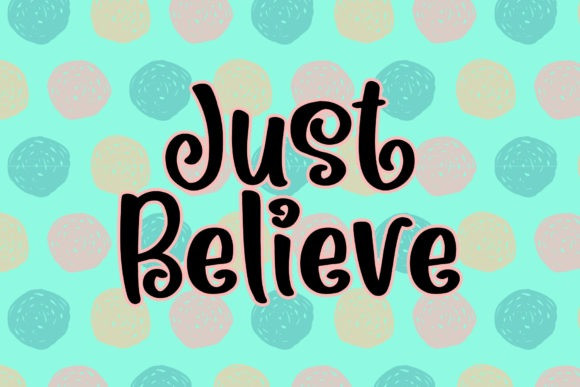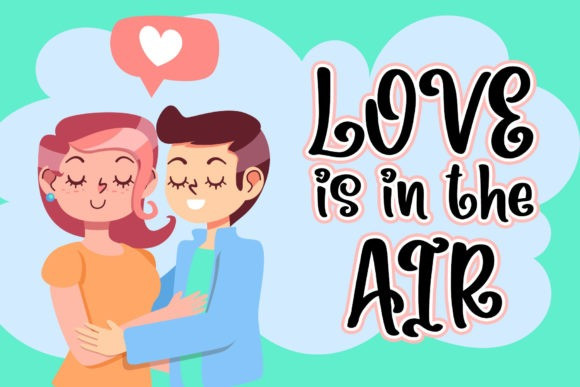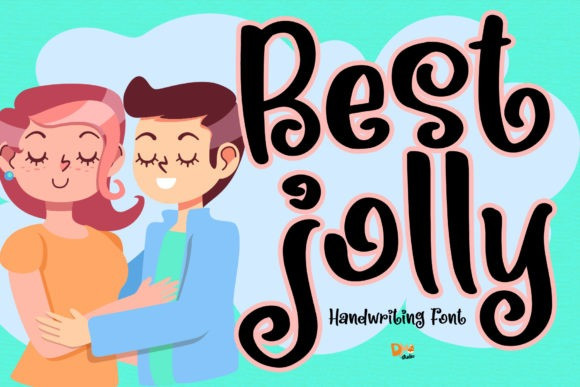
Amblas Stylish Font
Amblas is a stylish Font, It’s useful for any Design project. card, e-card, Good for Logos & Headlines, Poster,Tag design, Newspaper & Magazine Ad Design and many more.